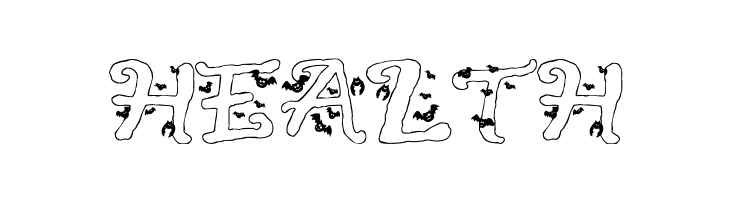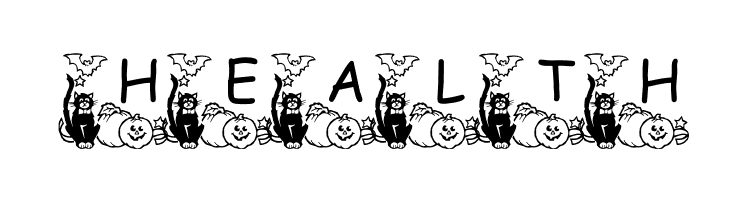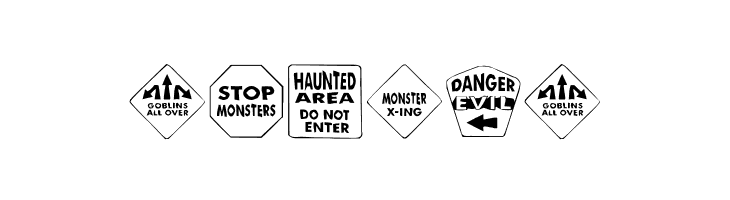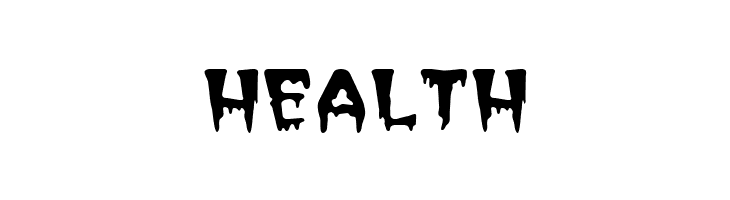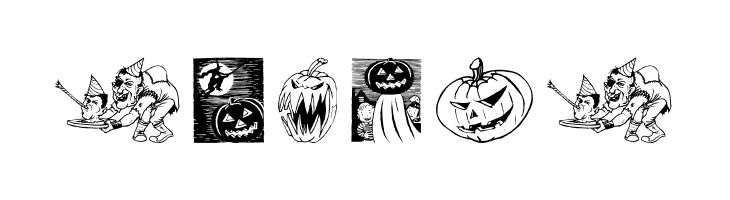
A whimsical, Halloween-themed decorative font with spooky elements.
A jagged, irregular font perfect for spooky, Halloween-themed designs.
A bold, brush-style font with a playful, spooky vibe.
A quirky, hand-drawn style font with a spooky, playful twist.
A spooky, hand-drawn style font perfect for Halloween themes.
A spooky, hand-drawn font with jagged edges and a Halloween theme.
A spooky, dripping font ideal for Halloween themes.
A whimsical, Halloween-themed font featuring playful hand-drawn illustrations.
A spooky, playful font with jagged edges and whimsical serifs, perfect for Halloween themes.
A bold, Halloween-themed font with playful, spooky elements.
A playful, spooky handwritten font ideal for Halloween themes.
A jagged, thorn-like font perfect for Halloween themes.
A spooky, brush-stroke font ideal for Halloween themes.
A bold, playful font with a Halloween theme and italicized style.
A playful, Halloween-themed font with bold, rounded characters and spooky elements.
A playful, spooky font with Halloween-themed decorative elements.
A bold, spooky font with irregular edges, perfect for Halloween themes.
A decorative, Halloween-themed font with spooky, hand-drawn illustrations.
A bold, italicized font with a spooky, Halloween-themed design.
A bold, spooky font with jagged edges and thematic Halloween elements.
A playful, ghost-themed font perfect for Halloween designs.
A spooky, jagged font with an eerie, scratchy appearance perfect for Halloween themes.
A playful, Halloween-themed font with a carved pumpkin style.
A bold, Halloween-themed font with playful, spooky elements and an italicized slant.
A bold, Halloween-themed decorative font with playful, spooky elements.
A whimsical, eerie font with jagged edges and playful curls, perfect for Halloween themes.
A bold, italicized font with a spooky, Halloween-themed design.
A bold, playful font with a spooky, Halloween-inspired design.
A playful, spooky font with jagged, hand-drawn style perfect for Halloween themes.
A playful, spooky font with whimsical, distorted characters perfect for Halloween themes.
Playful, blob-like font ideal for Halloween themes.
A bold, decorative Halloween-themed display font with playful, spooky details.
A whimsical Halloween-inspired decorative font with themed illustrations in each character.
A bold, dripping decorative font ideal for spooky or Halloween themes.
A dripping, Halloween-themed decorative font with playful, spooky details.